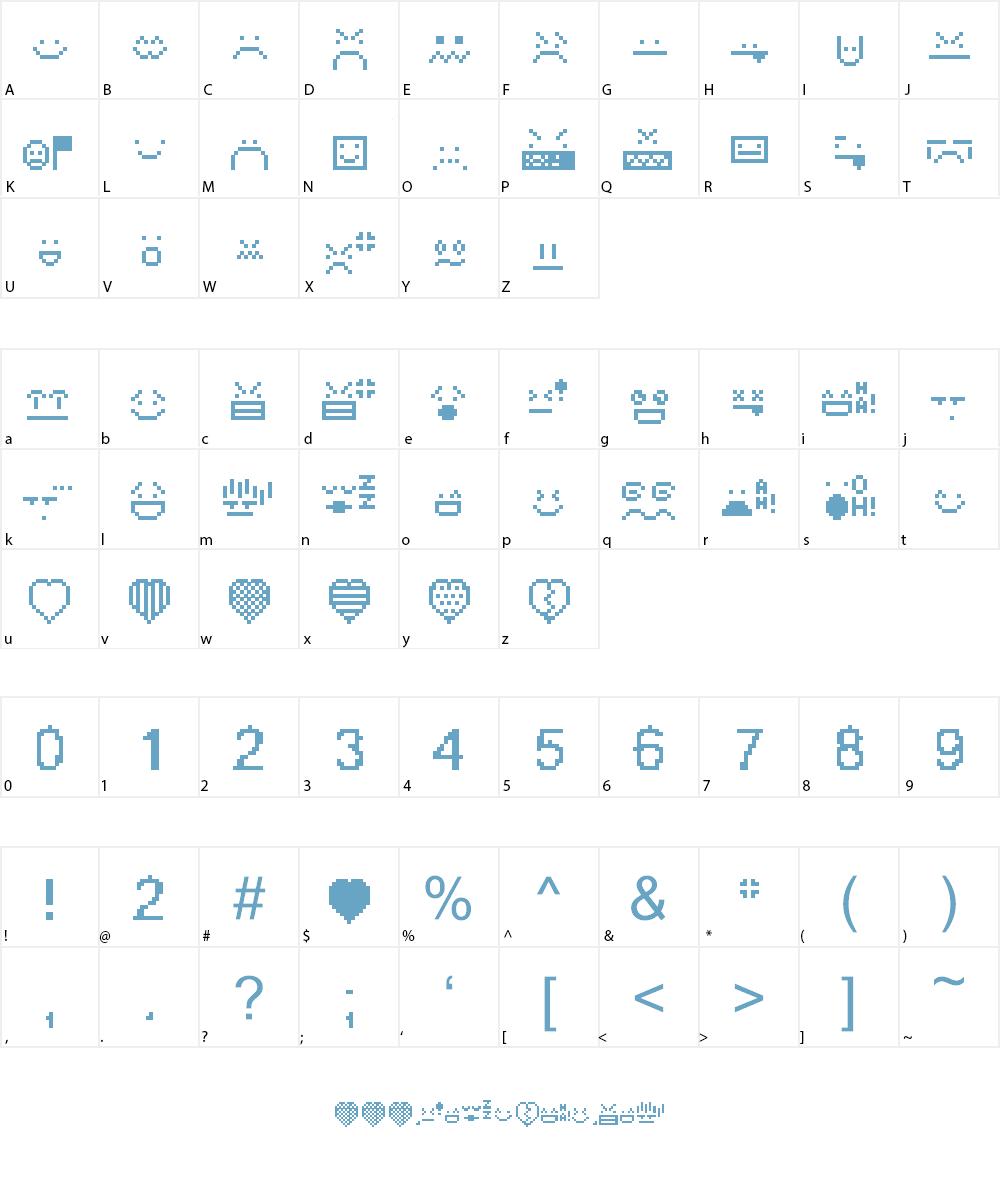
This is a bitmap Emoticon Dingbat font, and a tribute font to our dingbat font by KineticPlasma Fonts, Be Happy.
Designed by Heaven Castro @ Heaven Castro Studios.